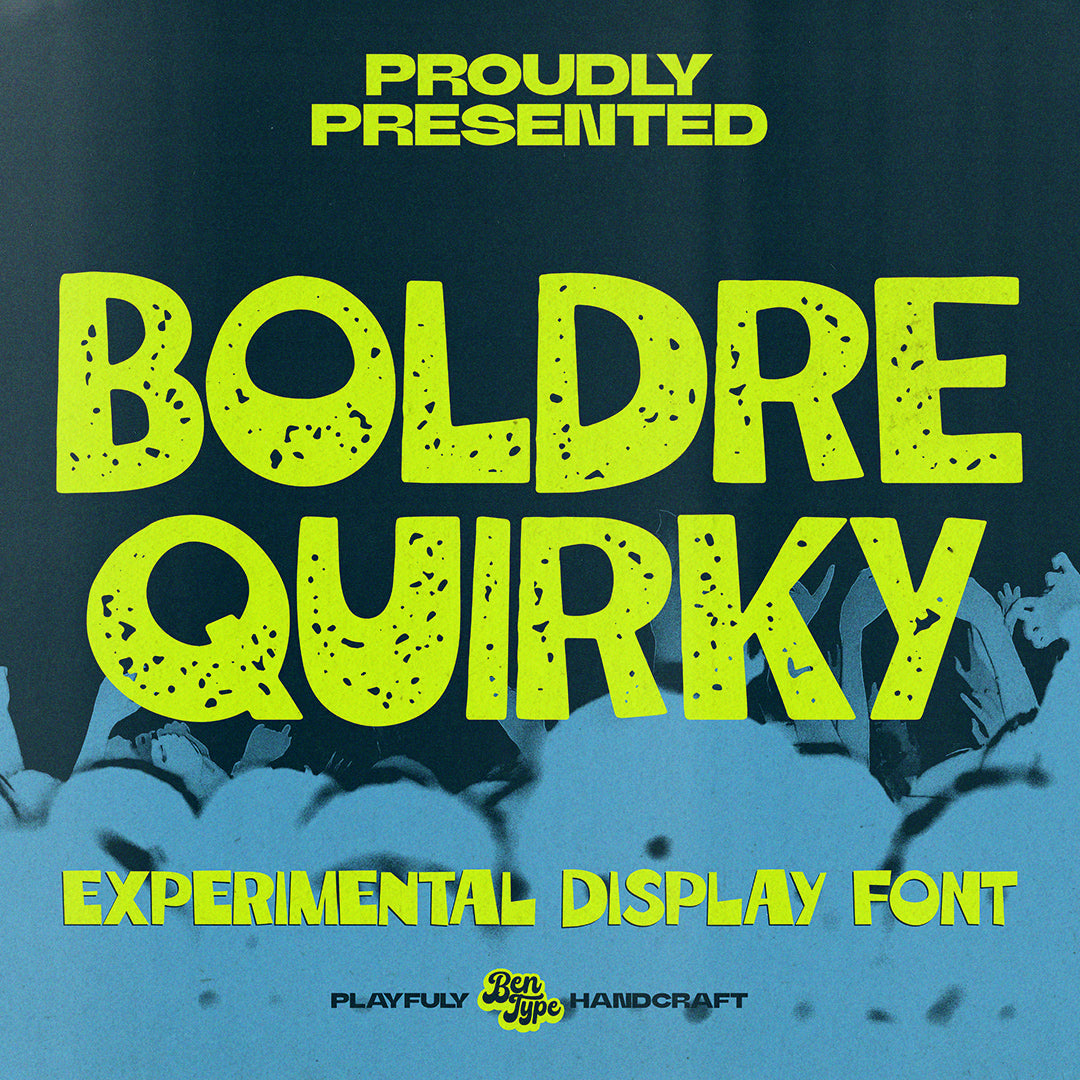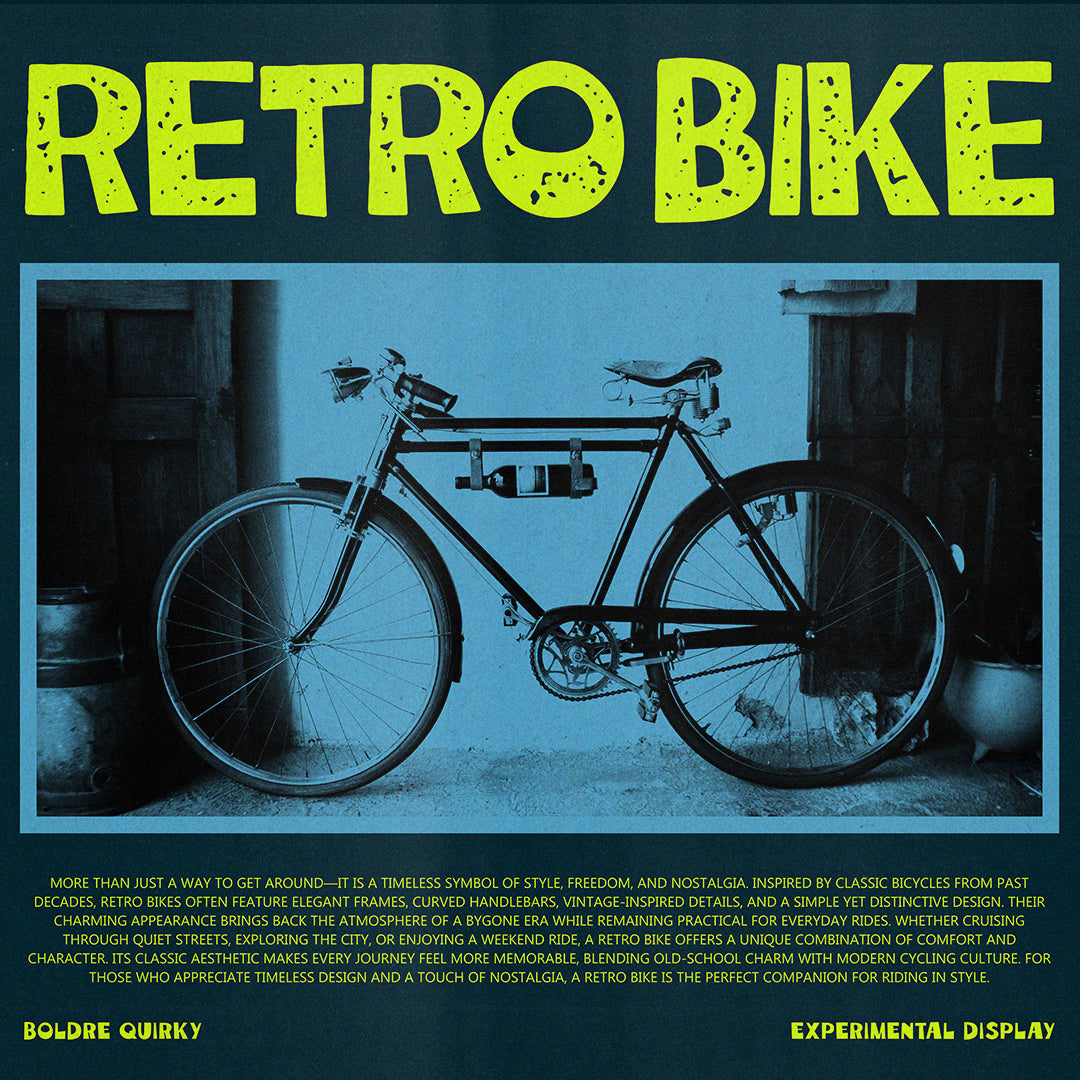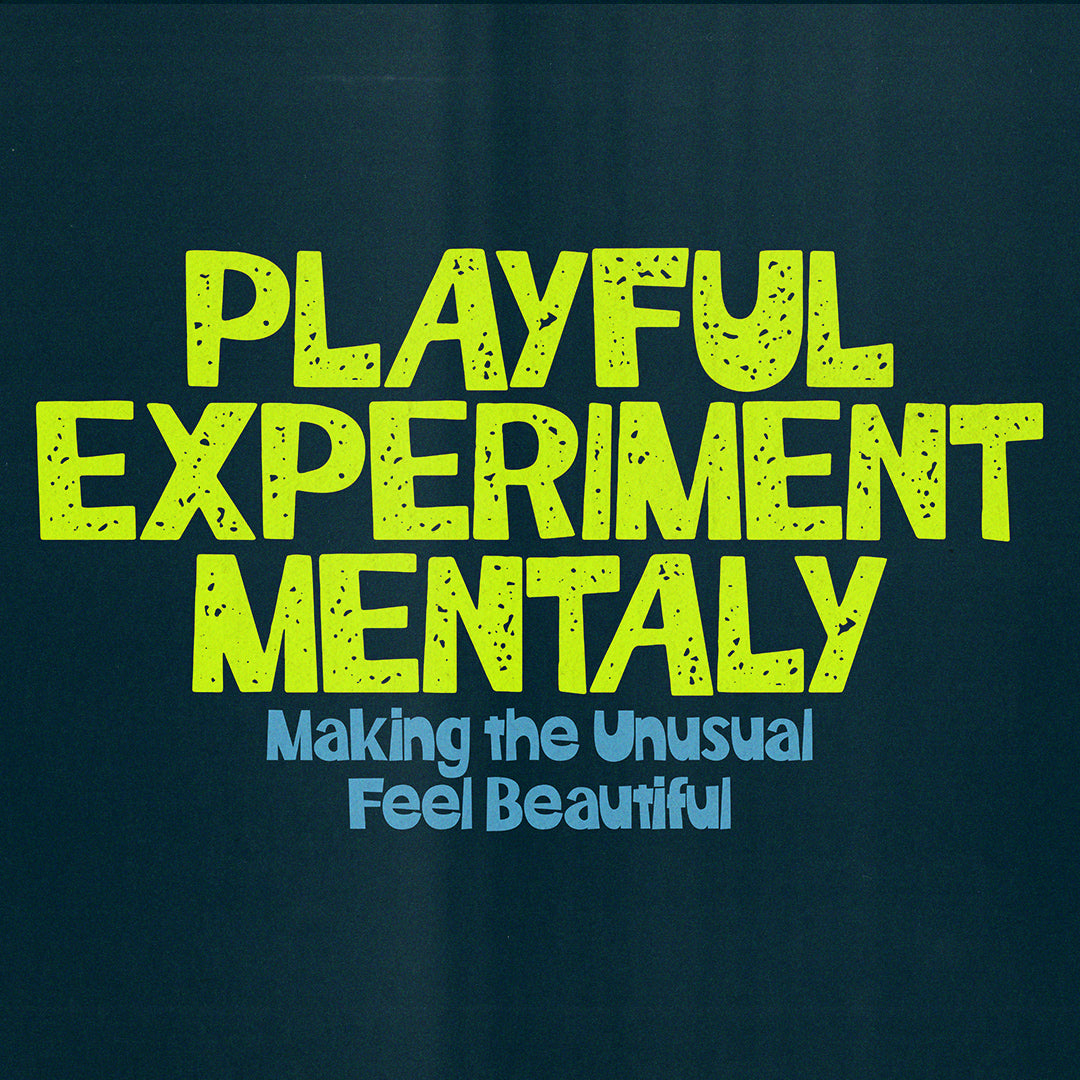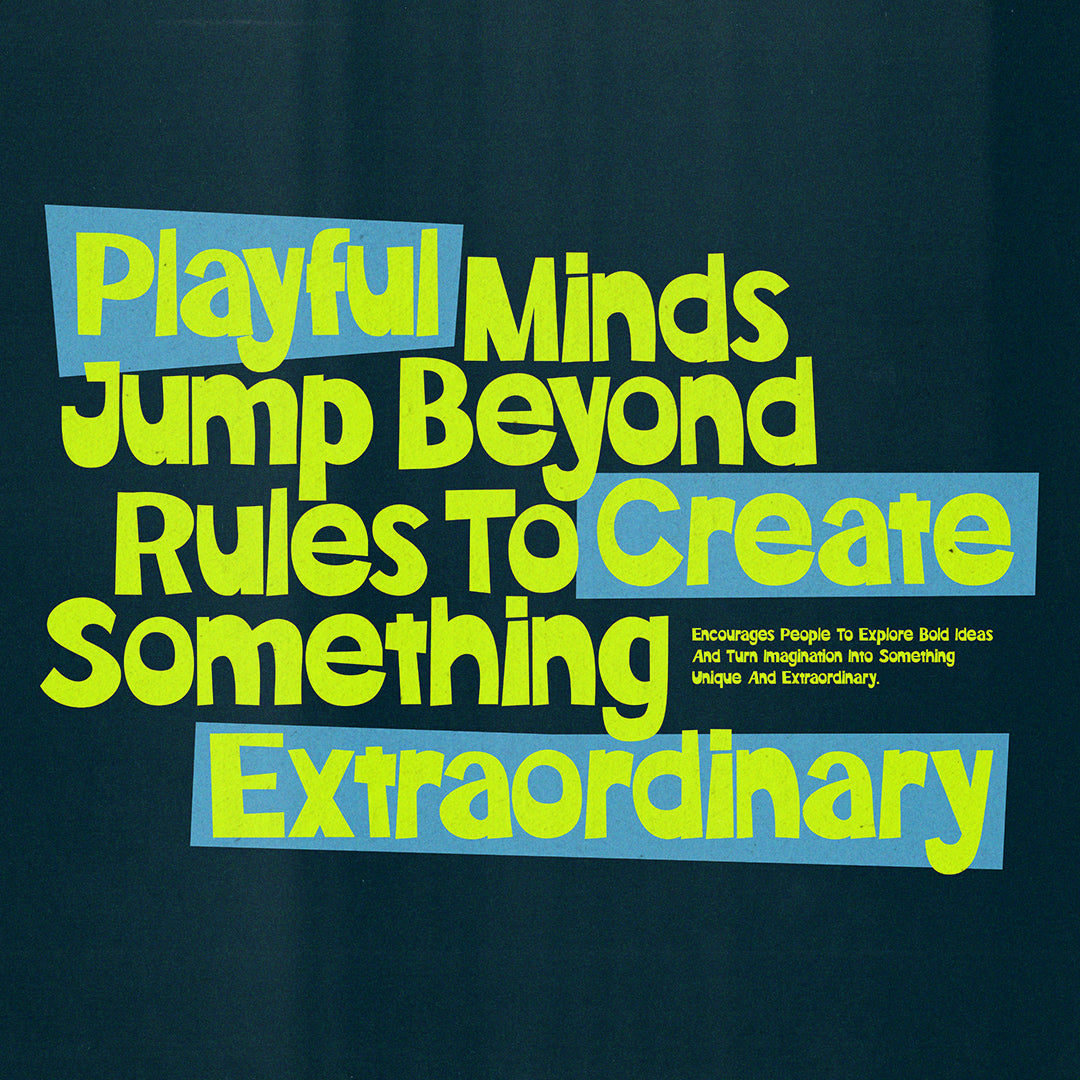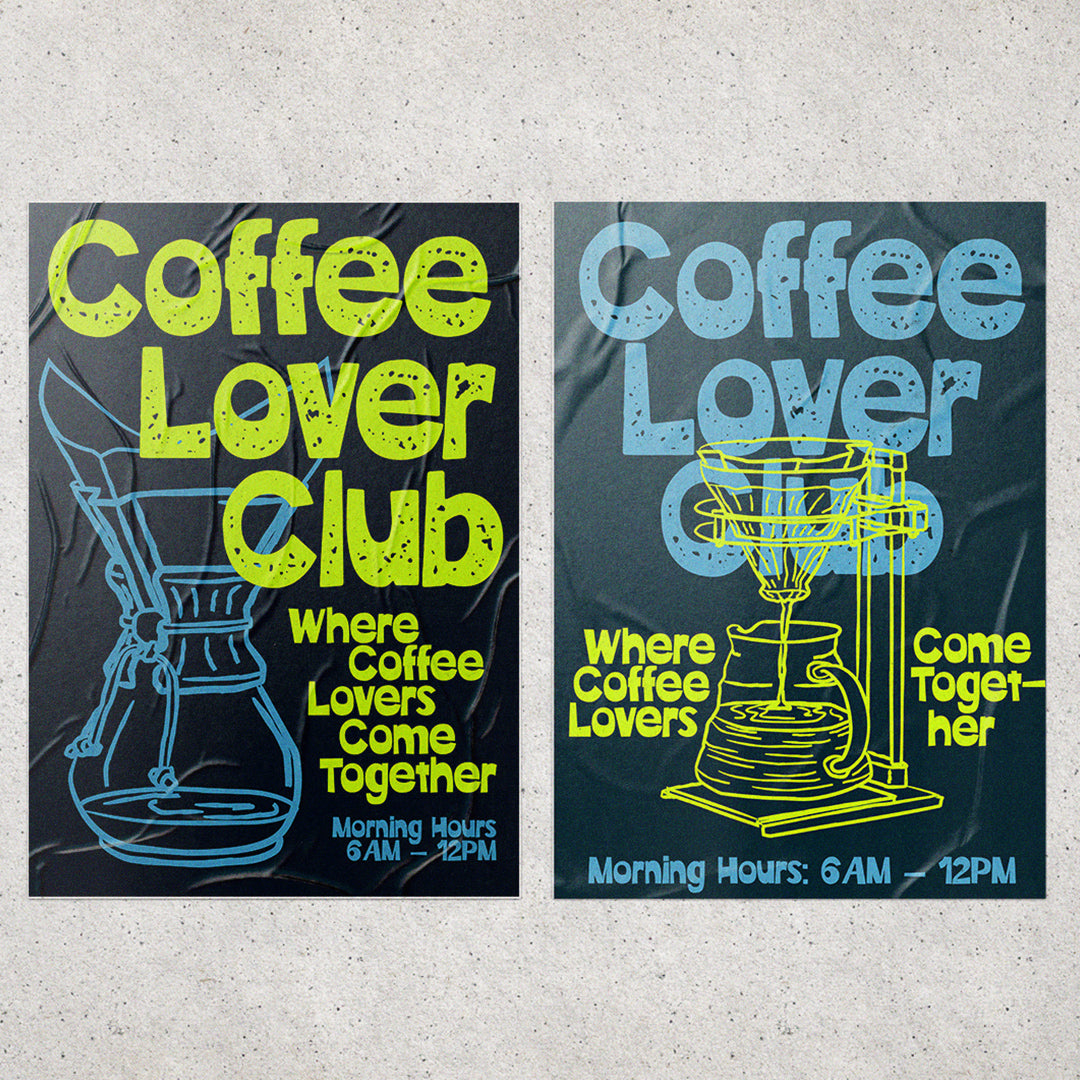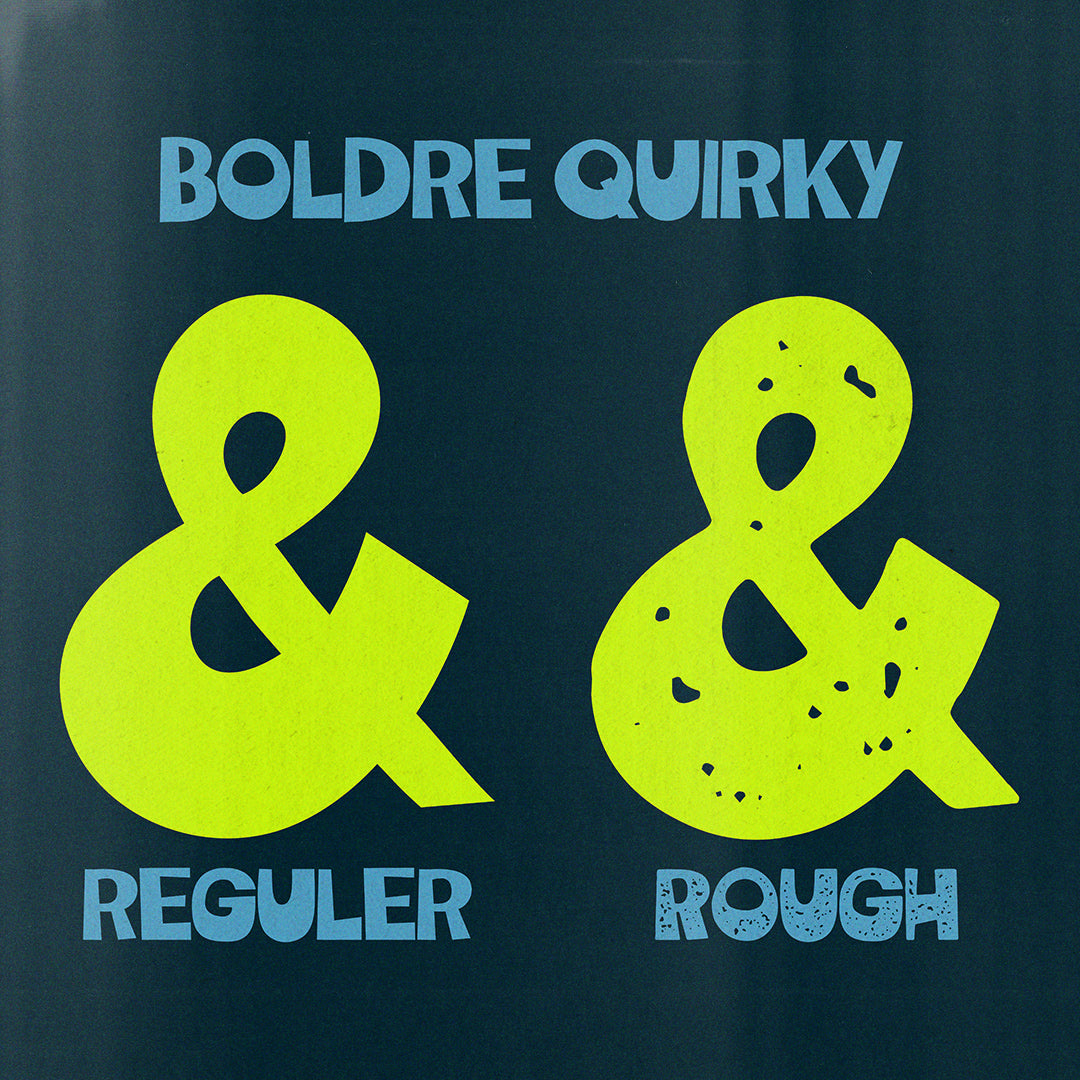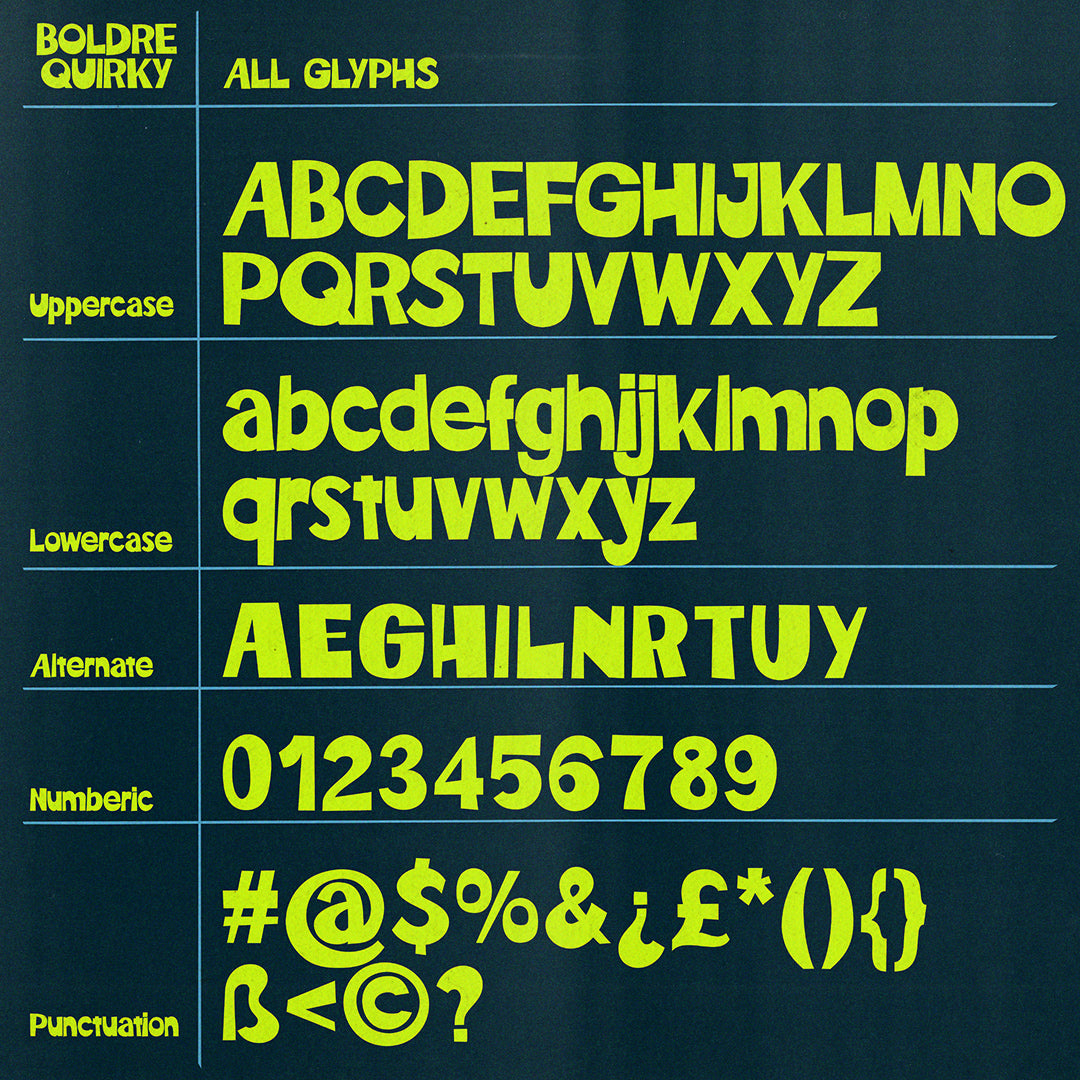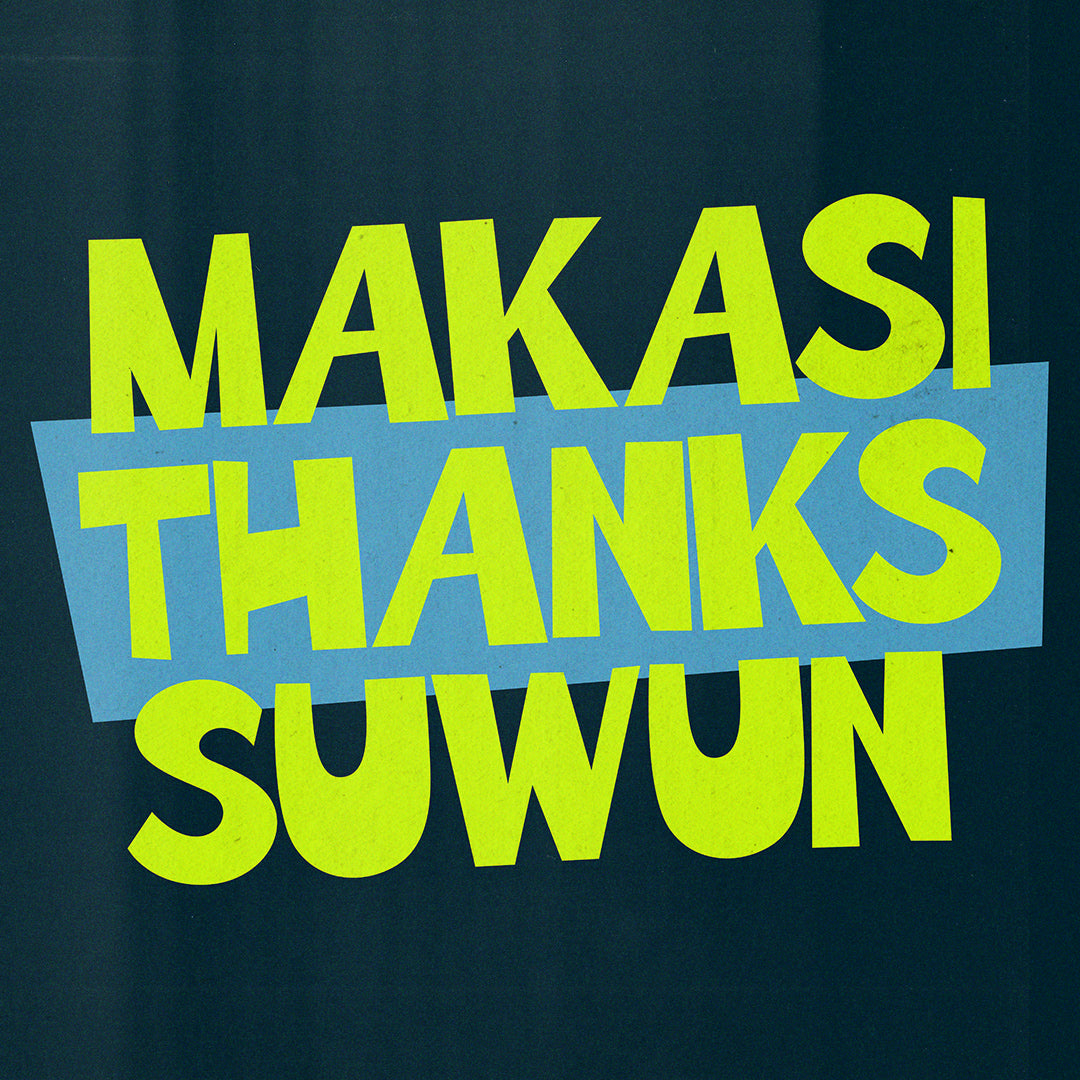
Boldre Quirky - Experimental Display Font
Bentype Studio
Boldre Quirky is a bold and playful display font designed to bring a fun, experimental personality to your typography. Featuring chunky forms, quirky proportions, unexpected details, and distinctive alternate glyphs, it creates a dynamic look that instantly grabs attention.
Perfect for posters, branding, packaging, social media graphics, headlines, stickers, album artwork, and creative editorial designs, Boldre Quirky works especially well when you want your design to feel energetic, unconventional, and full of character. Its expressive style makes every word stand out with a bold dose of creativity.
Boldre Quirky is a bold display font featuring chunky forms, quirky proportions, and alternate glyphs, available in Regular and Rough styles. It includes uppercase and lowercase letters, numbers, punctuation, multilingual support, and .otf/.ttf file formats.